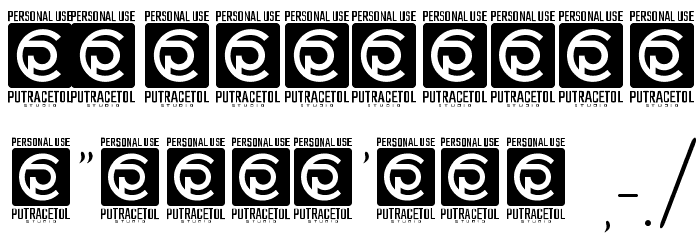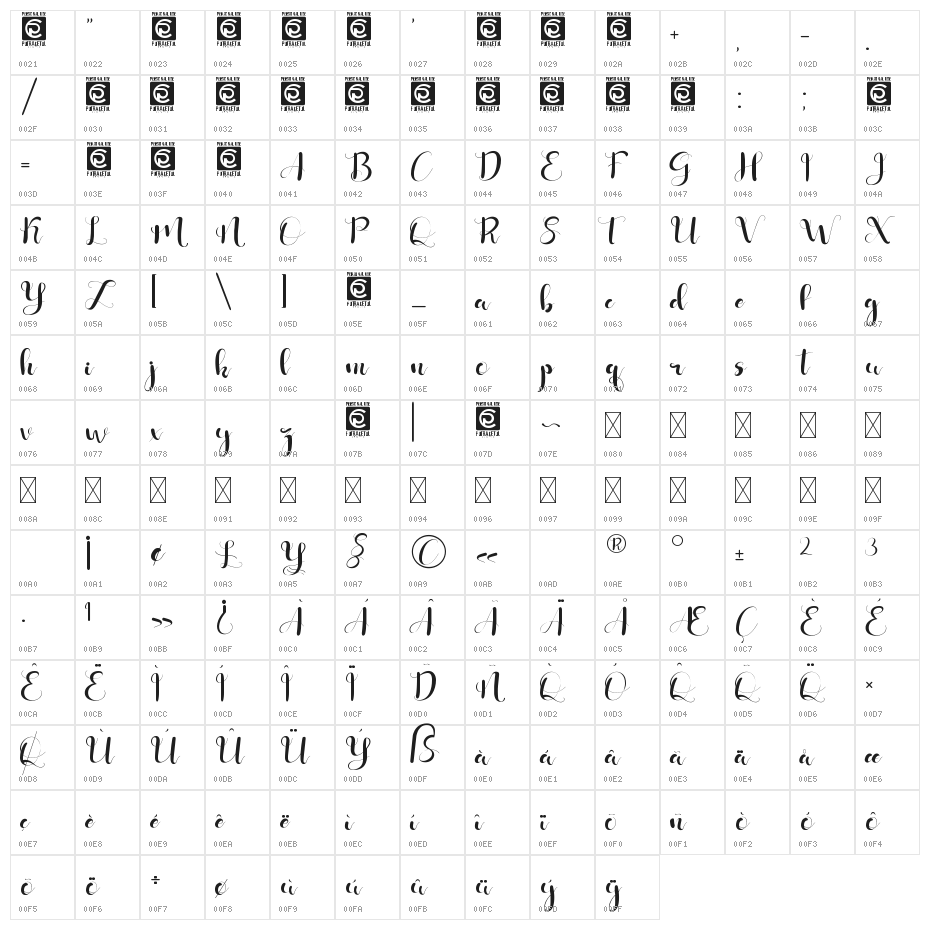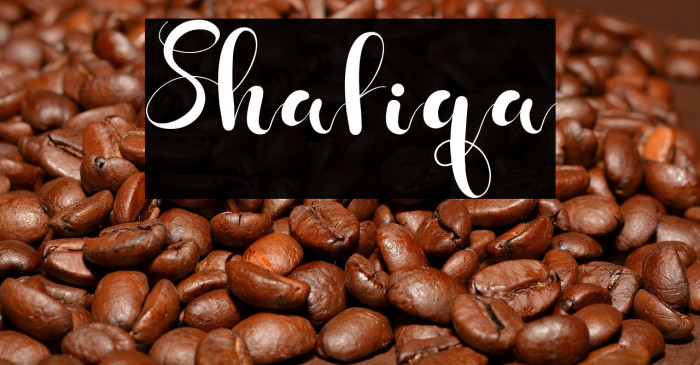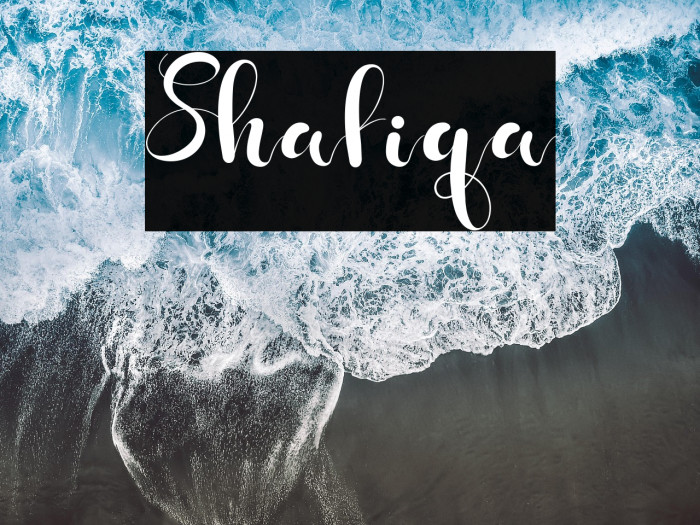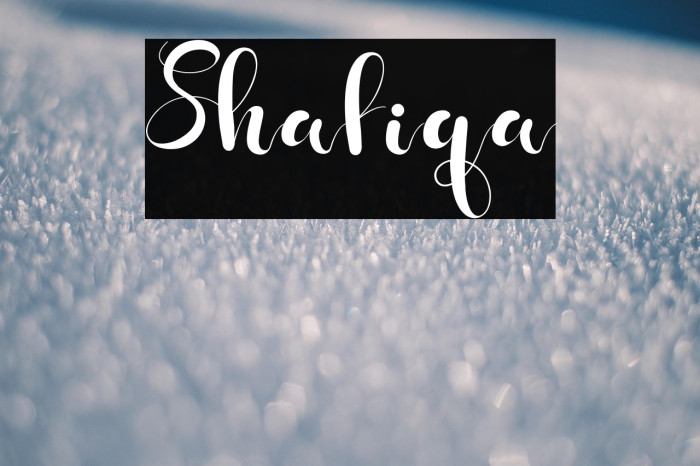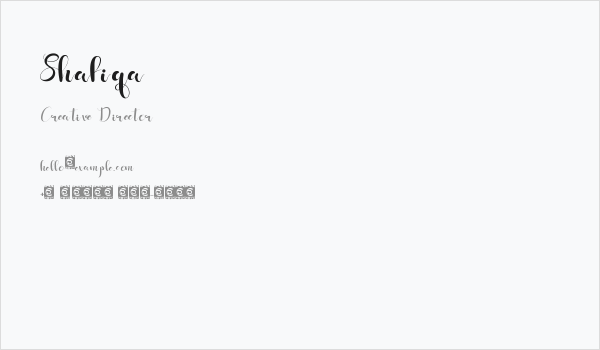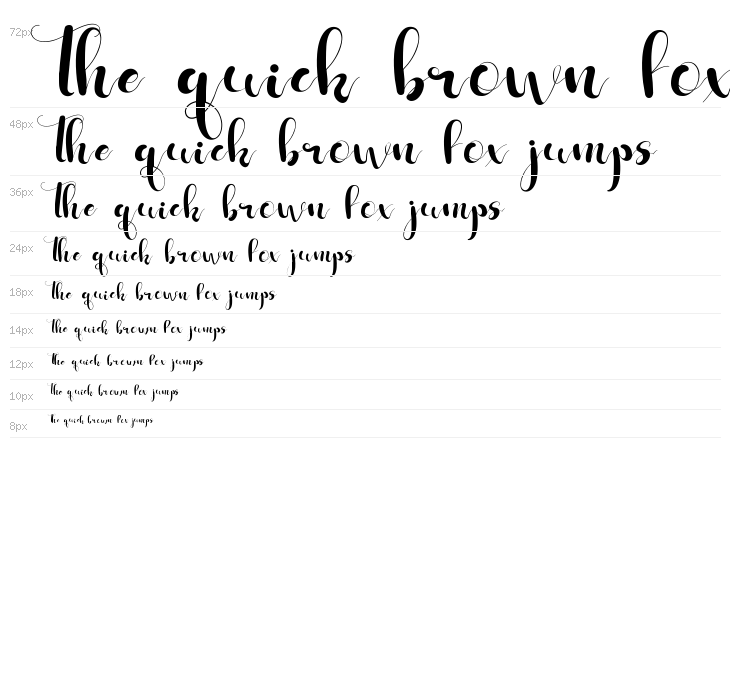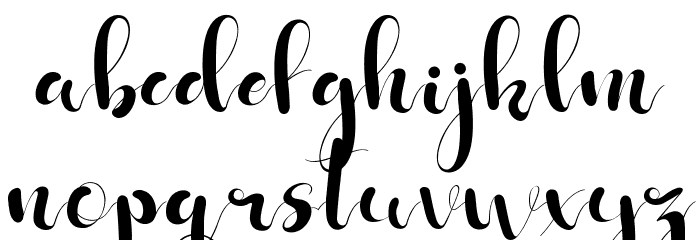
Shafiqa Font
Shafiqa Description
This font features an elegant and flowing script style, characterized by its graceful curves and intricate swashes. The uppercase letters are particularly ornate, with extended flourishes that add a touch of sophistication and drama. The lowercase letters maintain a consistent flow, enhancing readability while retaining a stylish appearance. The font's overall design is reminiscent of classic calligraphy, making it suitable for formal and decorative applications. The numerals and special characters are designed to match the script's aesthetic, ensuring a cohesive look across all text elements.
| Proposed Projects | Ideal for wedding invitations, greeting cards, branding, and elegant packaging designs. |